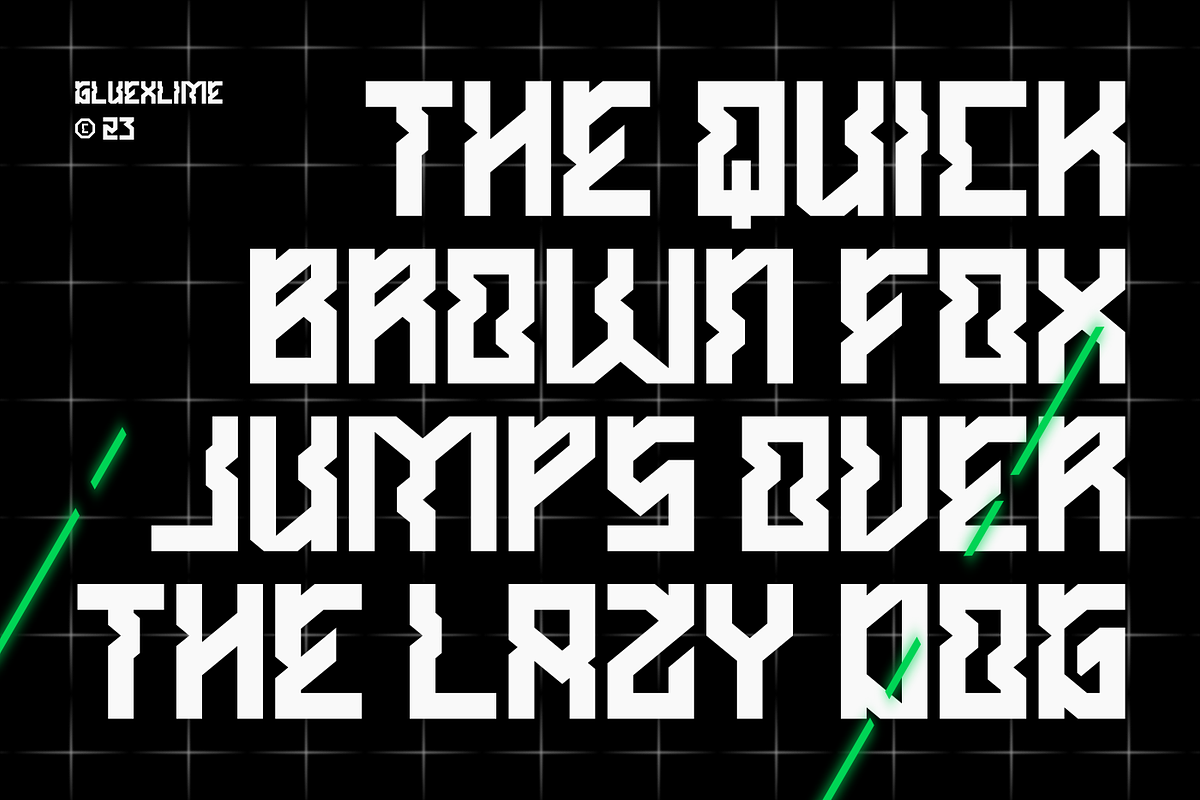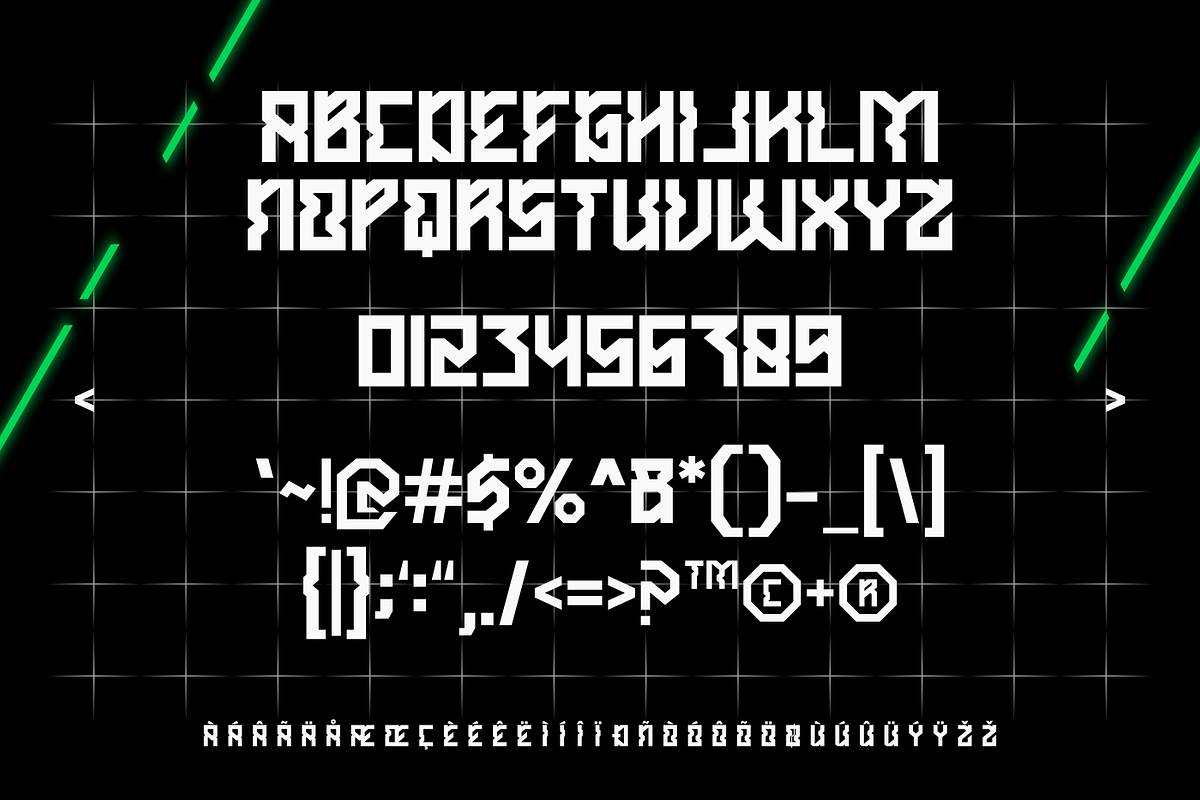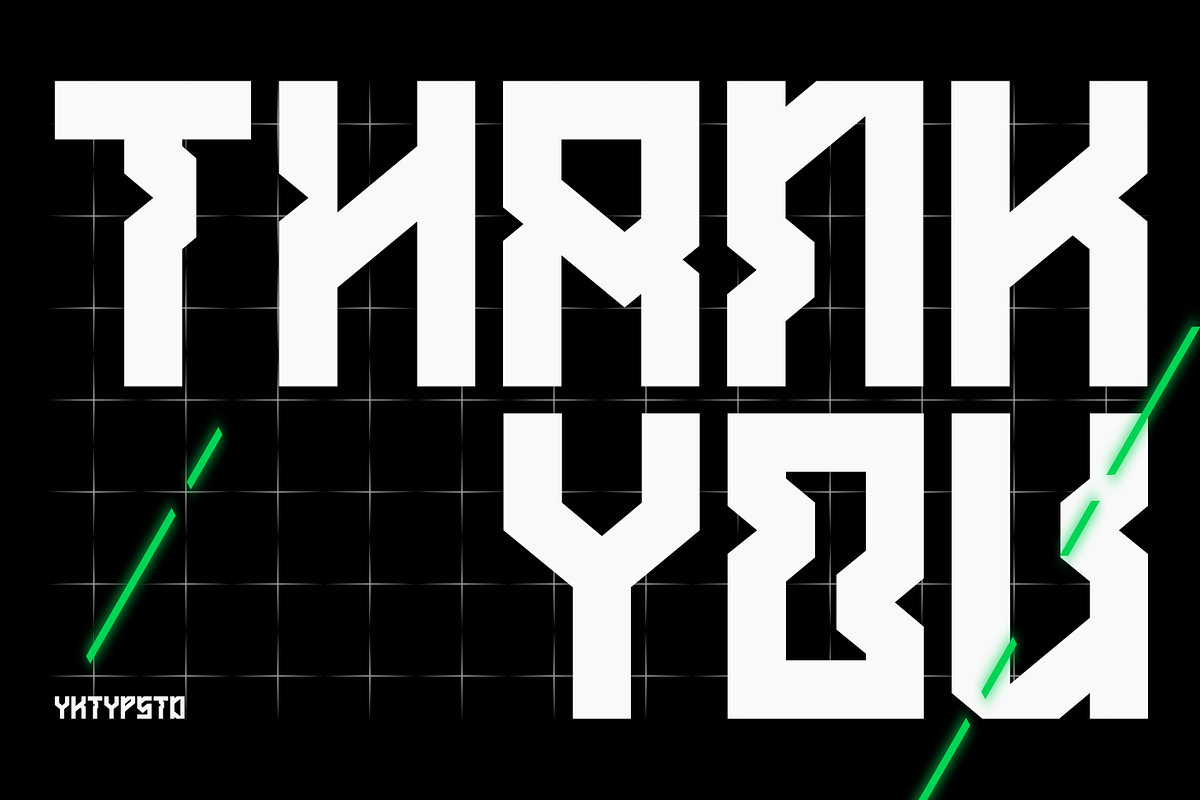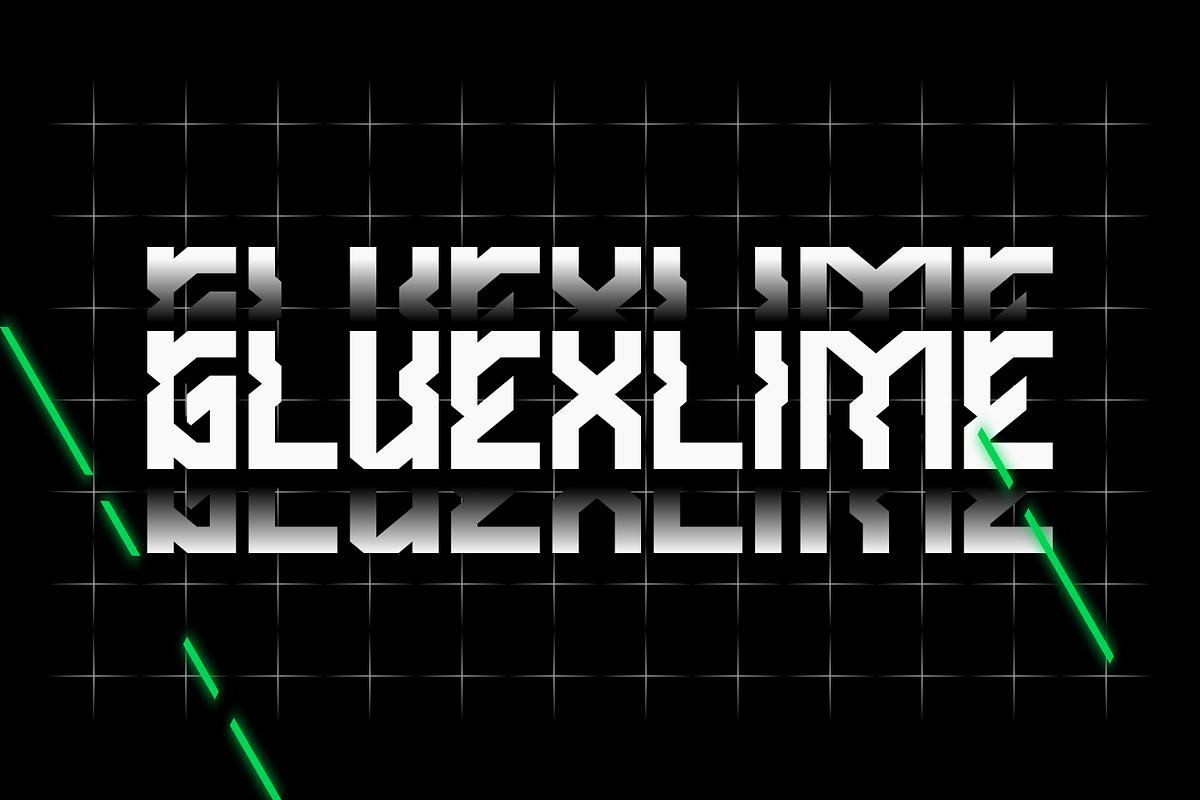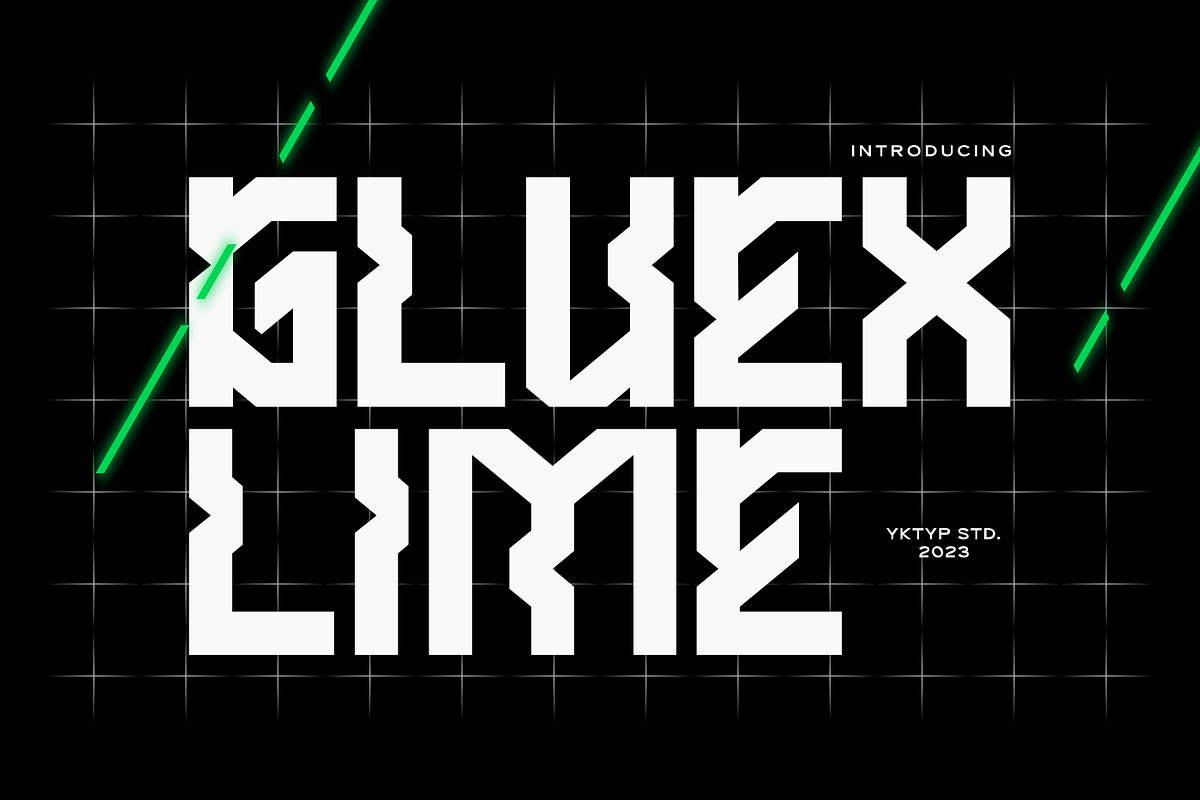
Gluexlime
Step boldly into the future with Gluexlime. This bold font is ideal for creating stand-out titles, offering an innovative play on modern letterforms. Brings an air of forward-thinking creativity to any text.
All Caps Character (A-Z)